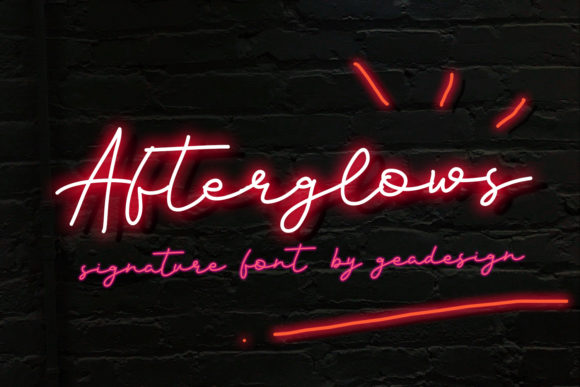
The Dreamy Touch of Afterglows Font: A Designer’s Delight
Have you ever been in the middle of a craft project, pouring your heart and soul into it, only to realize that something’s missing? For me, that something was the perfect font. I was working on a whimsical design for a client’s wedding invitation, and I just couldn’t find the right fit. That’s when I stumbled upon Afterglows Font, and it was love at first sight! 💕
Afterglows is a signature font with a casual feel that adds a dreamy touch to any crafts project. Its unique charm and character make it perfect for designers, crafters, and creative hobbyists looking to add a personal touch to their work.
An Honest Review of Afterglows Font
- ✨ Unique and quirky character set that adds a touch of whimsy to any design
- ✅ Easy to read and understand, even in smaller sizes
- 💫 Supports OpenType features, glyphs, and stylistic alternates for added versatility
While Afterglows Font is a stunning addition to any design, there are a few things to keep in mind:
- 🤔 Some characters may not work well in very small sizes, so it’s best to use it in larger sizes (14pt or larger) for optimal results
- ⚠️ Limited language support, so it’s best to use it for English or similar languages
The Backstory of Afterglows Font
Afterglows Font was designed with the intention of creating a unique and dreamy font that would add a touch of whimsy to any design. The designer wanted to create a font that was both elegant and playful, with a casual feel that’s perfect for creative projects.
Q: What is Afterglows Font?
A: Afterglows Font is a signature font with a casual feel that adds a dreamy touch to any crafts project.